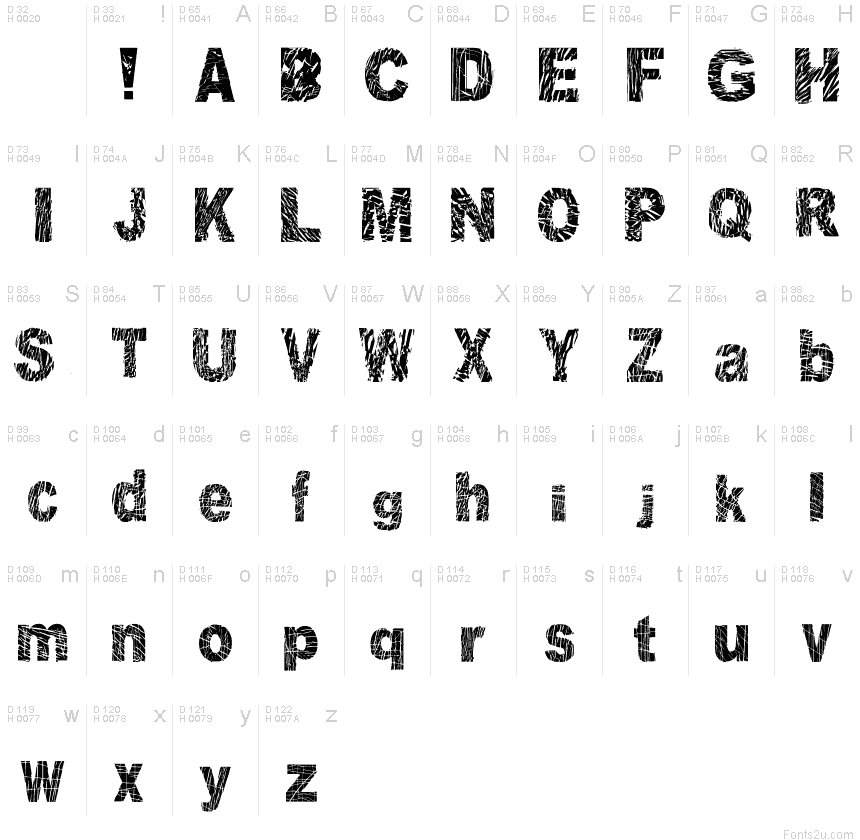
Distorted and Scratchy
Distorted and Scratchy font by Philip is a free eroded display typeface that looks like it’s been dragged across a rough concrete wall. Thick, wobbly letters are packed with chaotic, hand-drawn scratches that create a buzzing, noisy texture on the page. It feels raw and unstable, as if the text might start shaking at any moment—great when you want your titles to feel uneasy, loud, or defiantly lo-fi.
Using Distorted and Scratchy, your words instantly pick up a horror-meets-punk energy that stands out in crowded layouts. This free font works beautifully for horror posters, glitchy event flyers, album art, zines, game titles, and YouTube thumbnails. Keep it large so the scratch marks stay crisp, and pair it with a plain, condensed sans serif for body text to keep everything readable while the headlines go wild.